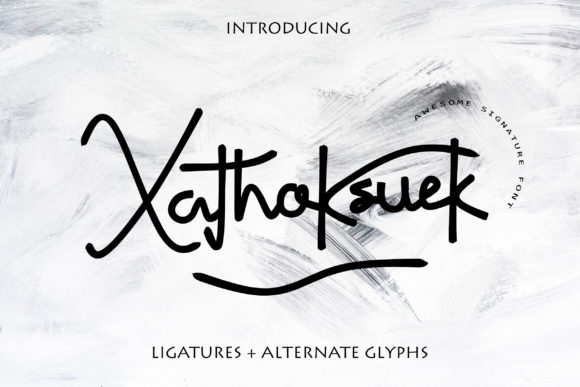
Meet Xathoksuek Font, a spellbinding script that unveils its mystic charm. Immerse yourself in the mesmeric dance of its characters, where uniqueness takes center stage. Designed with meticulous artistry, this font is not just a digital creation but an ethereal masterpiece.
With Xathoksuek Font, you are not buying a mere font; you acquire an enchanted calligraphy tool. Its enchanting glyphs are poised to cast a magical spell on your creative projects, leaving a trail of awe-inspiring visual enchantment.
Unleash the power of expression and let your ideas bloom into extraordinary creations. Xathoksuek Font grants you access to a world where the ordinary transforms into the extraordinary. Allow its flowing lines and captivating curves to ignite your inspiration and guide your creative vision.
Whether you are a graphic designer seeking to captivate your audience, or a blogger yearning to add a touch of elegance to your writings, Xathoksuek Font is your unwavering ally. Its versatility transgresses boundaries, inviting you to explore its beauty in logos, branding, posters, invitations, social media graphics, and so much more.
Crafted to perfection, this font stands as an ideal choice for those seeking to manifest their creative dreams. Its alluring appeal dances across websites, t-shirts, mugs, and even physical products, transforming them into breathtaking works of art.
As you embark on your creative odyssey, Xathoksuek Font will accompany you as a steadfast companion. Its elegance and unique demeanor will captivate hearts and minds, leaving an indelible mark of artistry wherever it graces.
Xathoksuek Font is more than just a font; it's an experience that redefines creativity. Embrace its allure and watch as your projects bloom into masterpieces that resonate with brilliance. Unleash the magic within and let Xathoksuek Font weave its enchantment into the very fabric of your imagination.